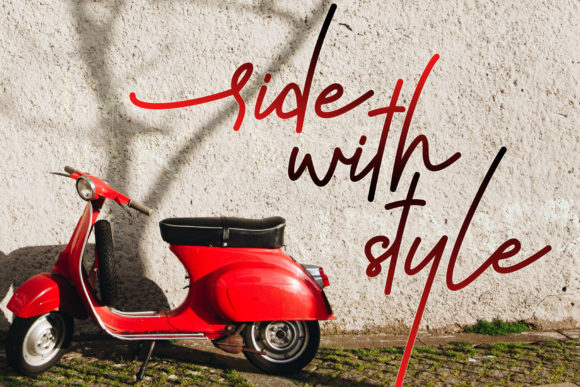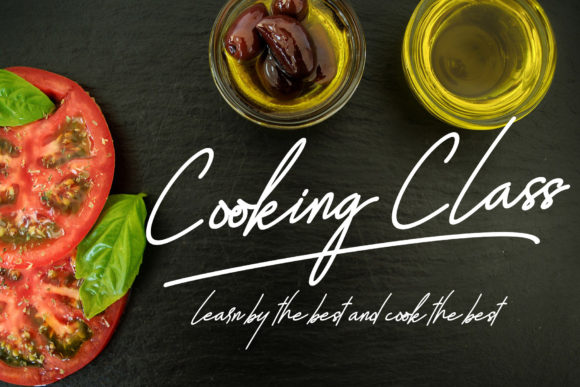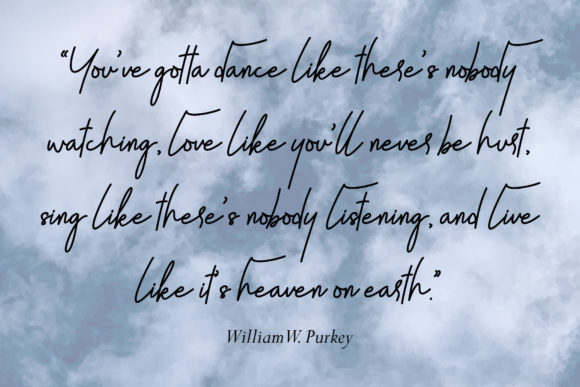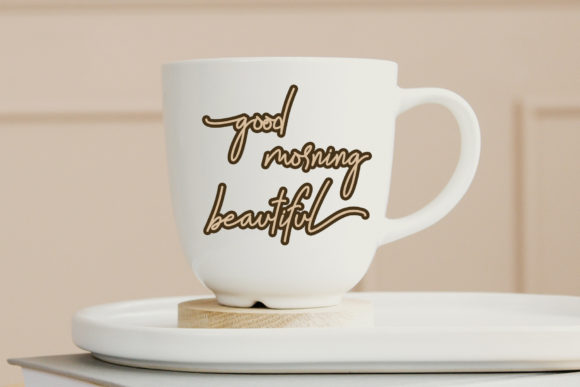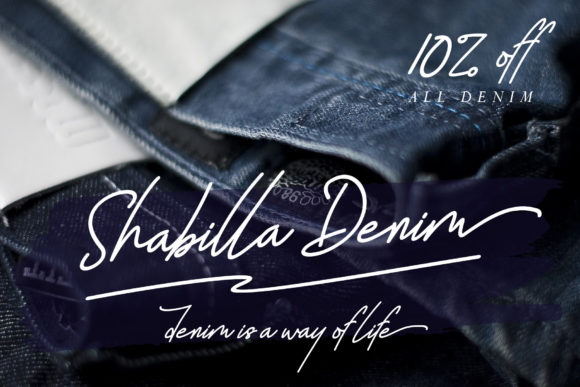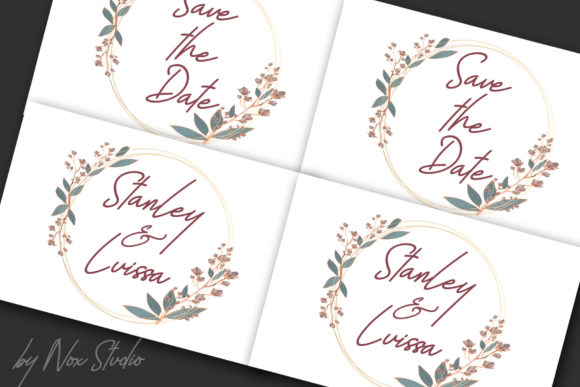
Introduction to Sky Fly Script Font
Sky Fly Script is a dazzling and timeless handwritten font.
It is the best choice for creating eye catching logos, branding and quotes This font is PUA encoded which means you can access all of the glyphs and swashes with ease.